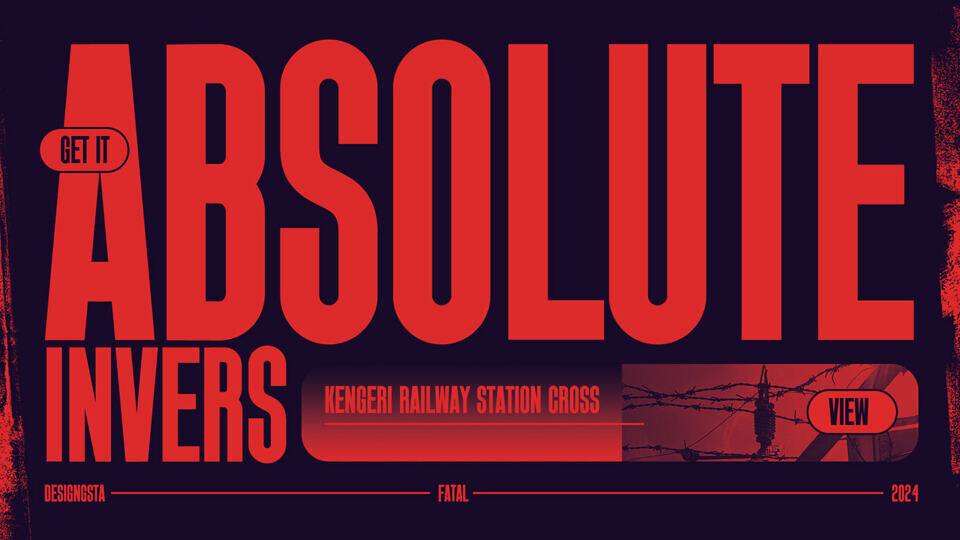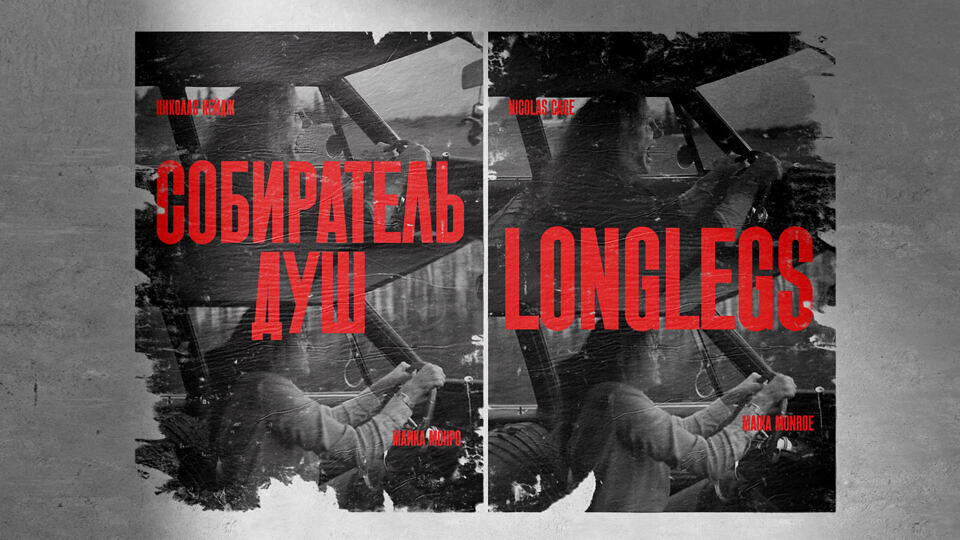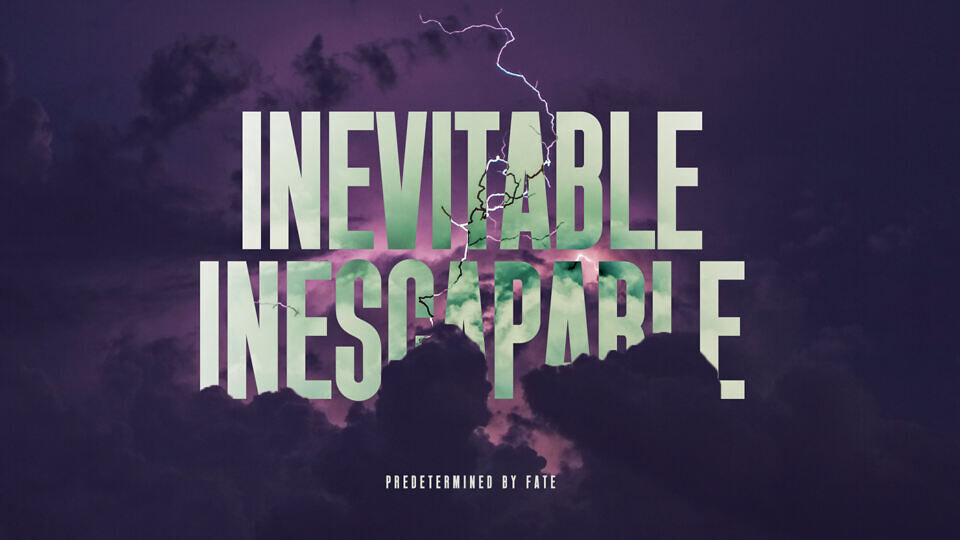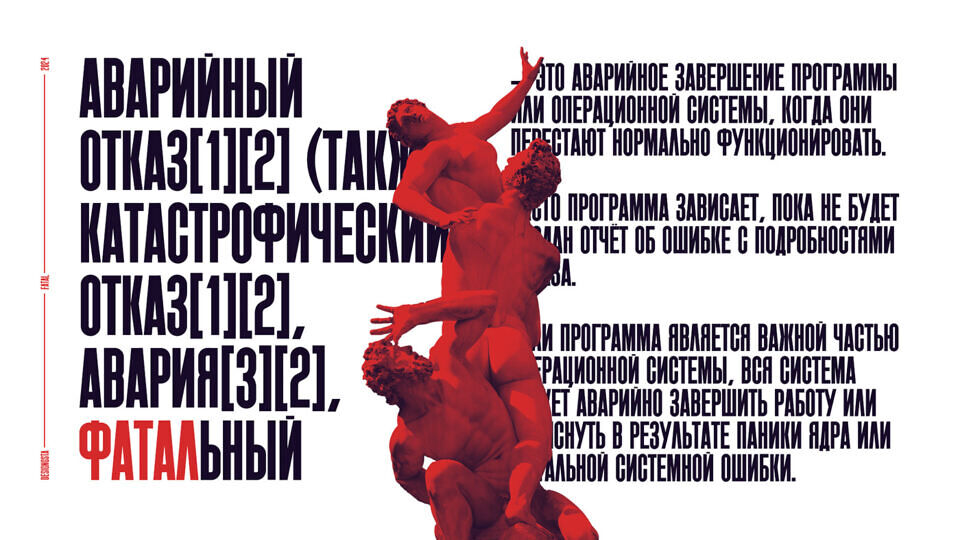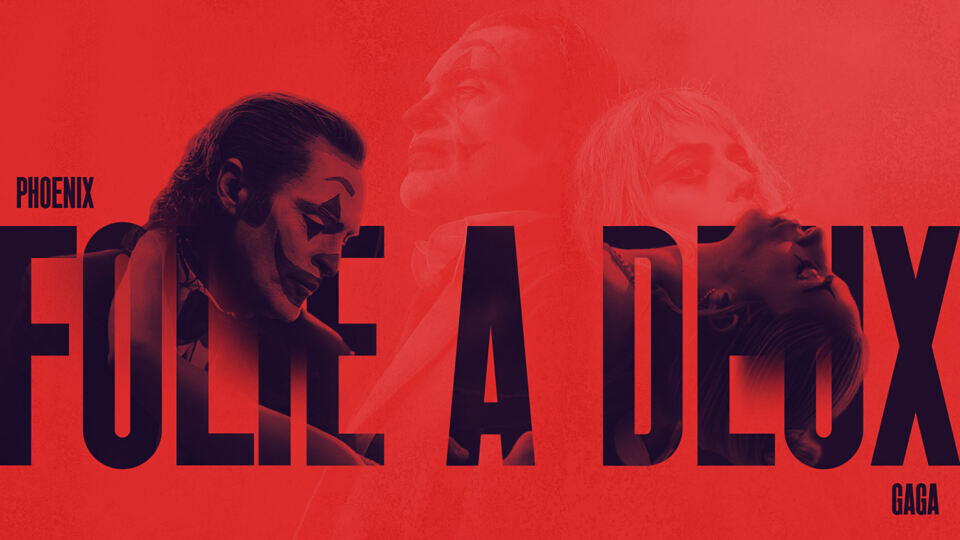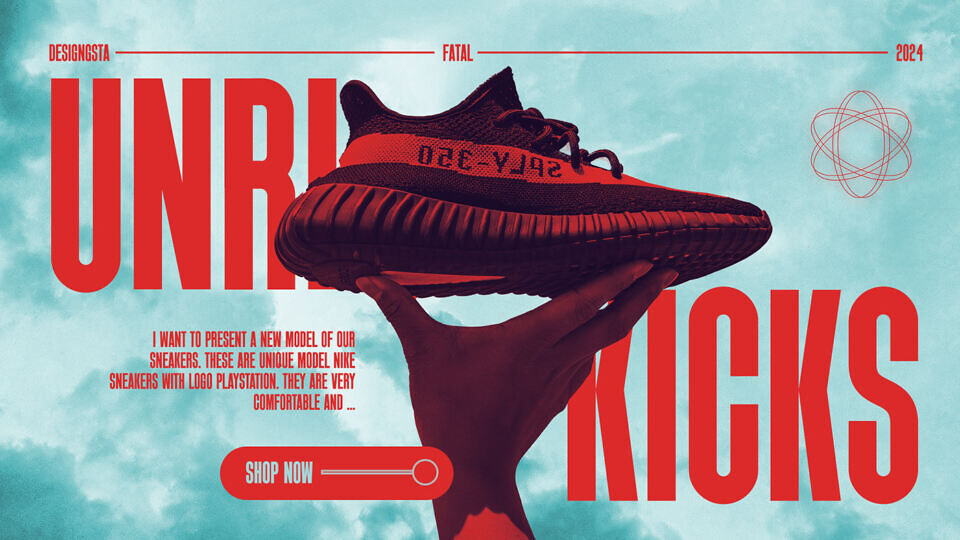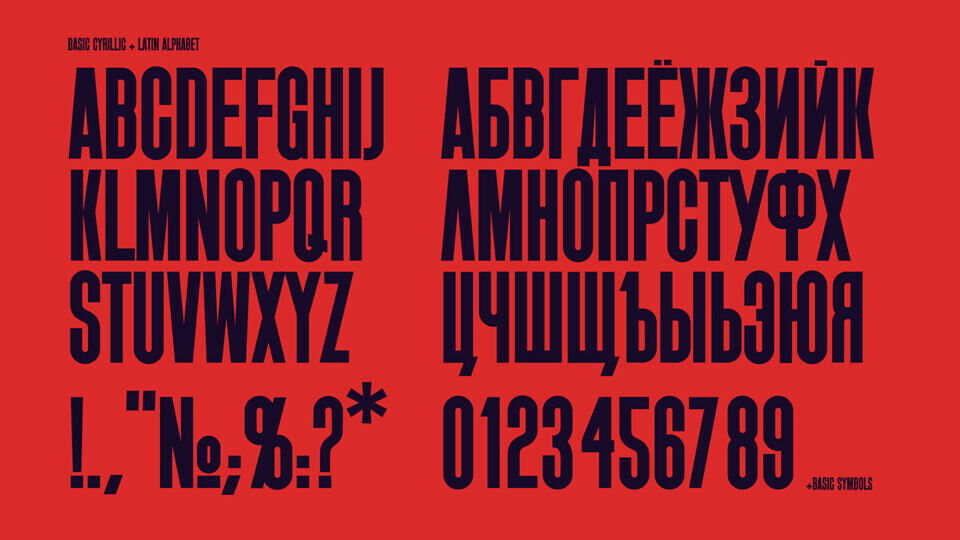
Fatal is a bold, futuristic typeface that exudes intensity and modernity. Designed with sharp angles and sleek lines, it captures a dystopian, cyberpunk aesthetic, perfect for impactful headlines, logos, or sci-fi-themed projects.
Its condensed, geometric forms ensure readability while conveying raw energy and strength. Fatal offers versatility for branding, posters, or digital interfaces, making it an ideal choice for designers seeking a striking, contemporary edge to elevate their creative work.